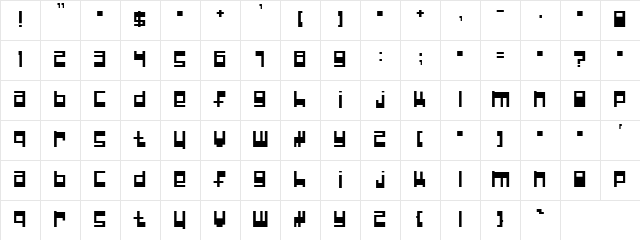
Null Pointer; Regular Free Font
Null Pointer; Regular
Foundry: [Divide By Zero] Fonts
Designer: Tom Murphy 7
Design Context for Null Pointer;
Null Pointer; is a composed and adaptable typeface that performs quietly and consistently across a wide range of design contexts.